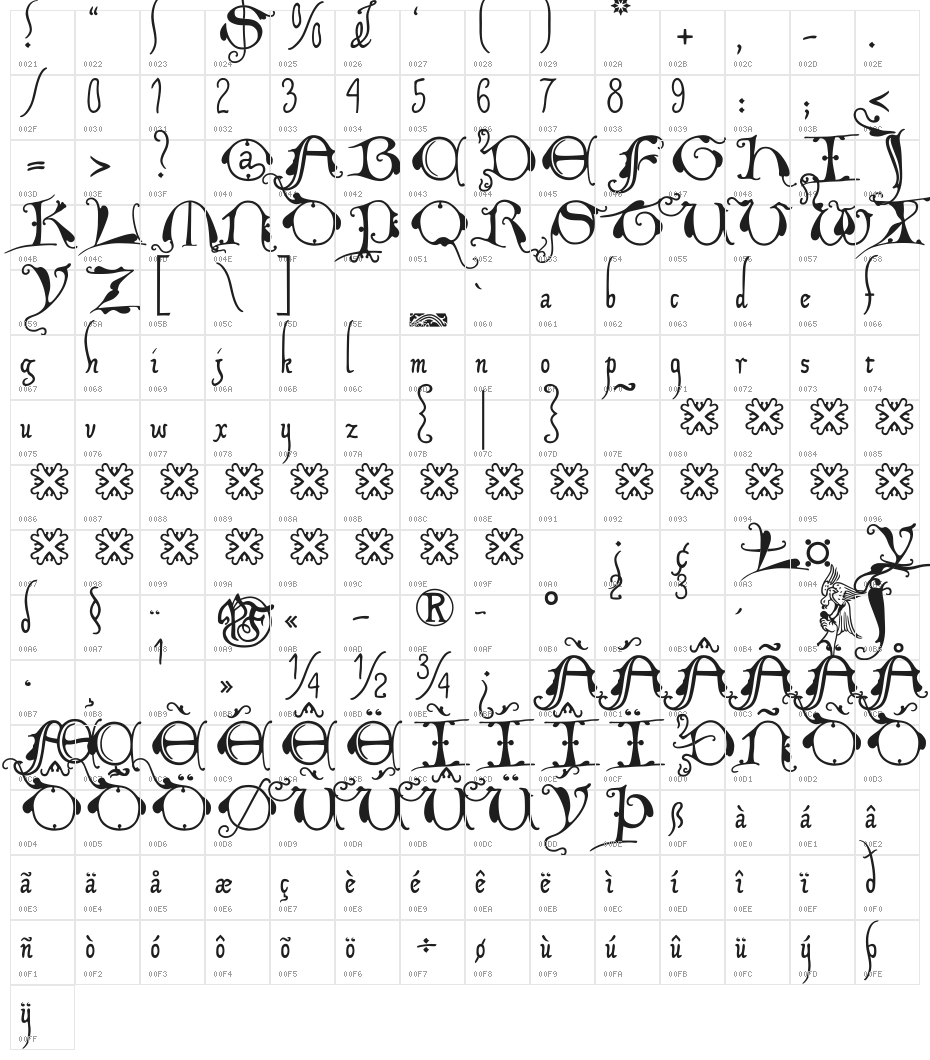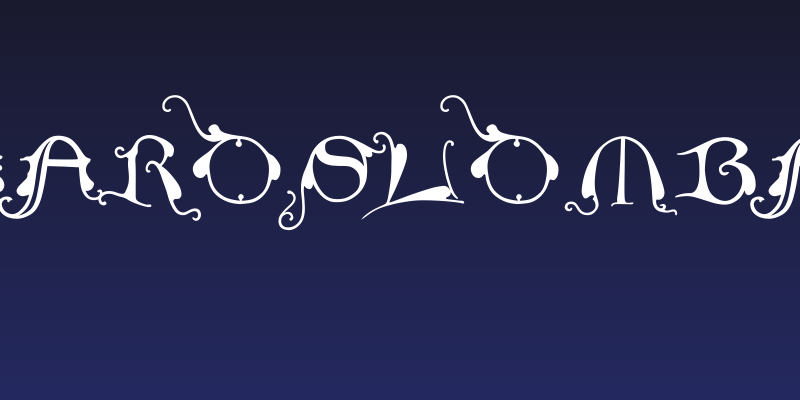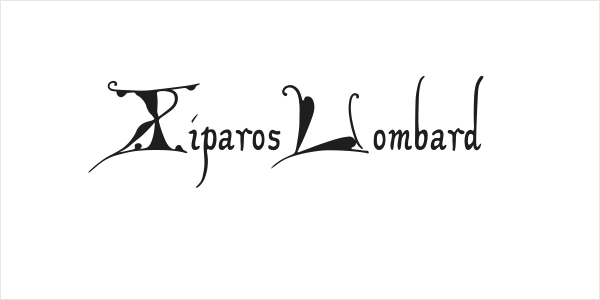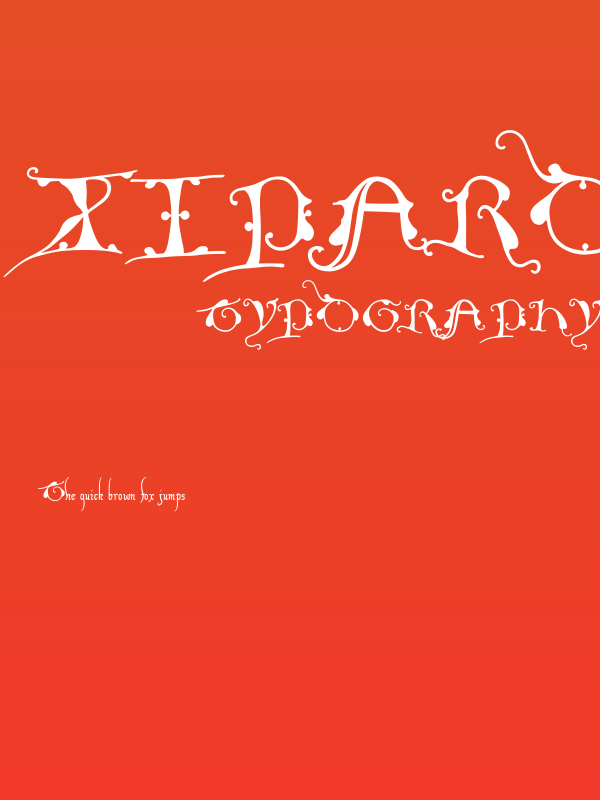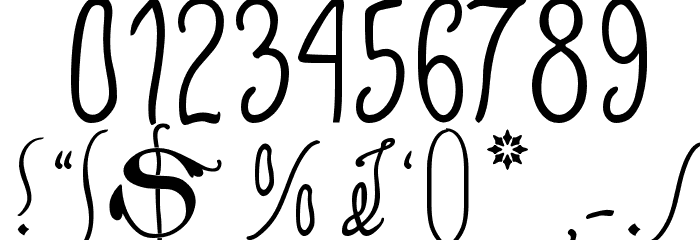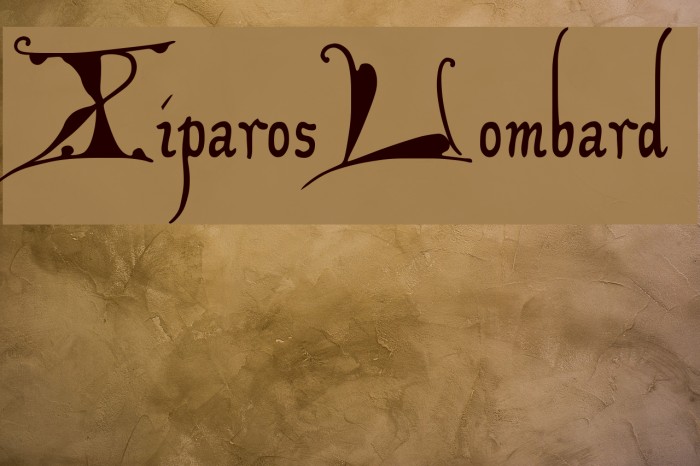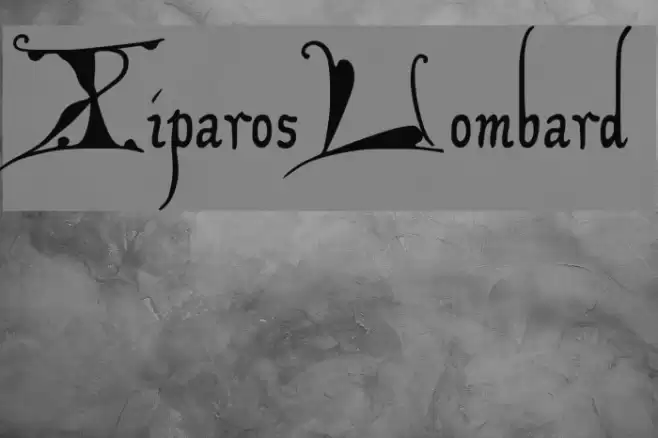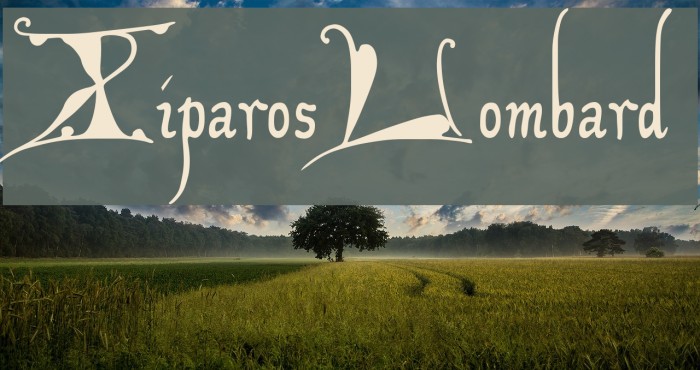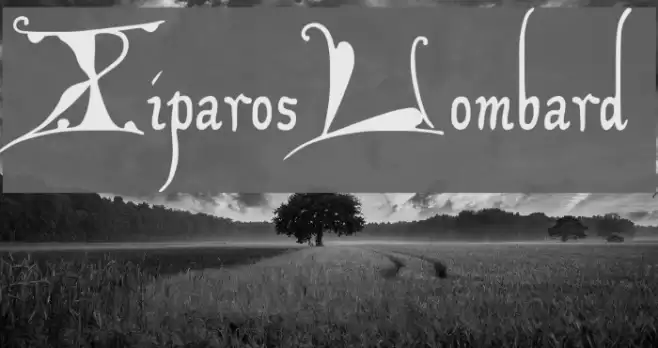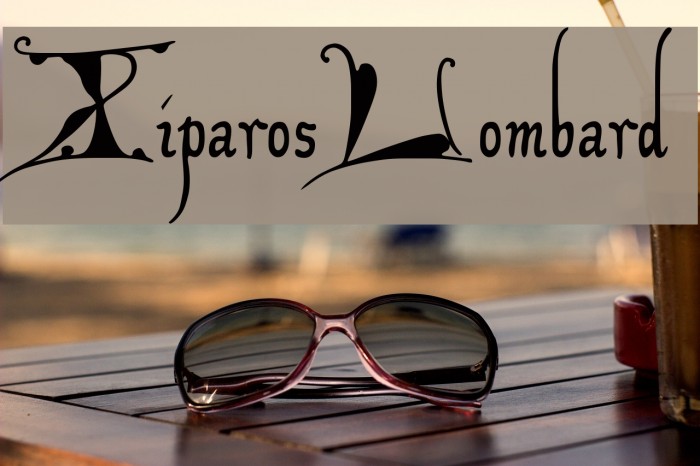
XiparosLombard Font
XiparosLombard Description
This font features an ornate and decorative style with intricate flourishes and unique character shapes. The uppercase letters are particularly elaborate, with swirling extensions and a whimsical feel. The lowercase letters maintain a playful yet elegant appearance, complementing the uppercase with their own distinct curves and loops. Numbers are styled to match the overall theme, providing a cohesive look. Special characters are equally detailed, adding to the font's artistic flair. This font's design is reminiscent of historical scripts, offering a blend of fantasy and sophistication.
| Use Case | Logos, Invitations, Branding |
| Proposed Projects | Ideal for fantasy-themed projects, invitations, branding for luxury products, or any design requiring a touch of elegance and creativity. |